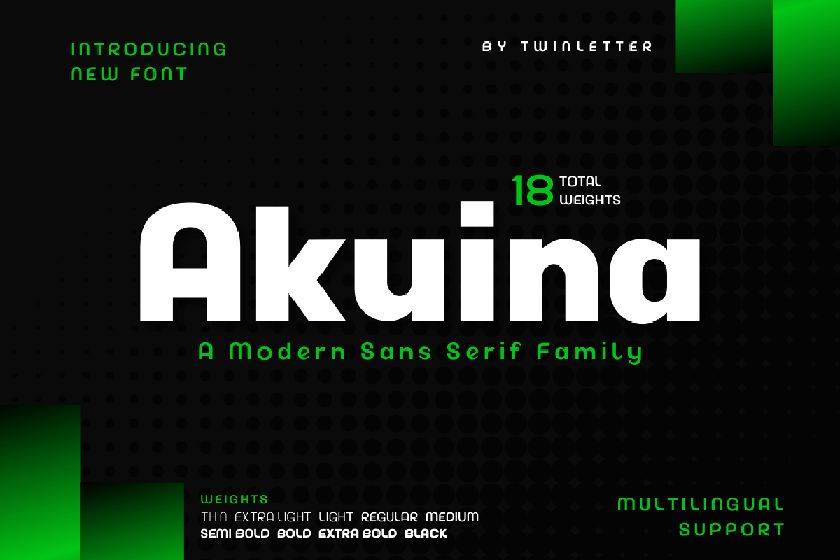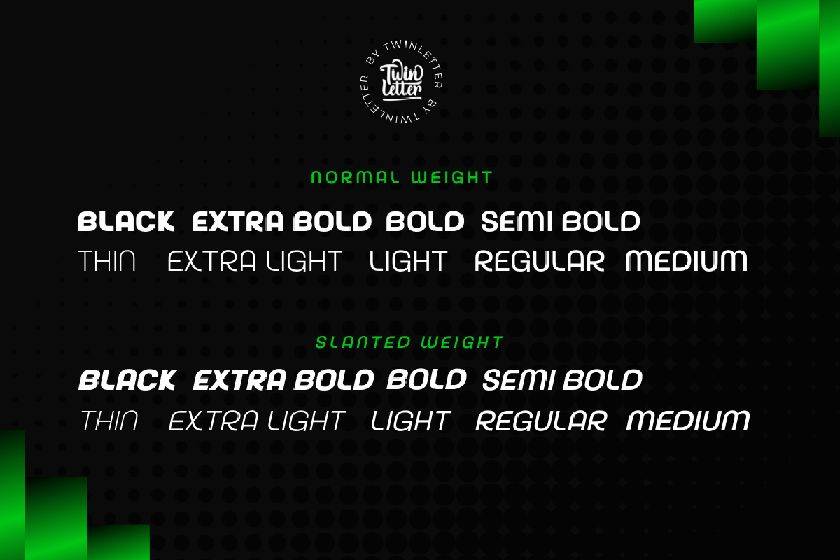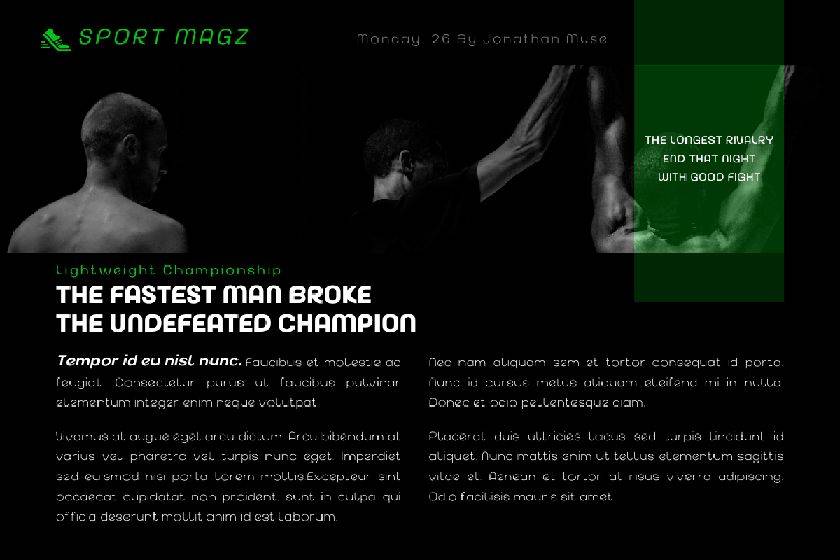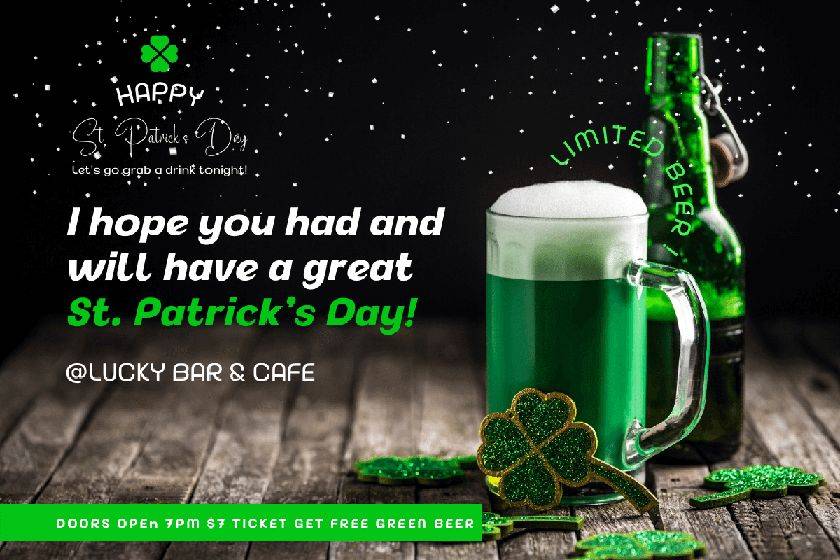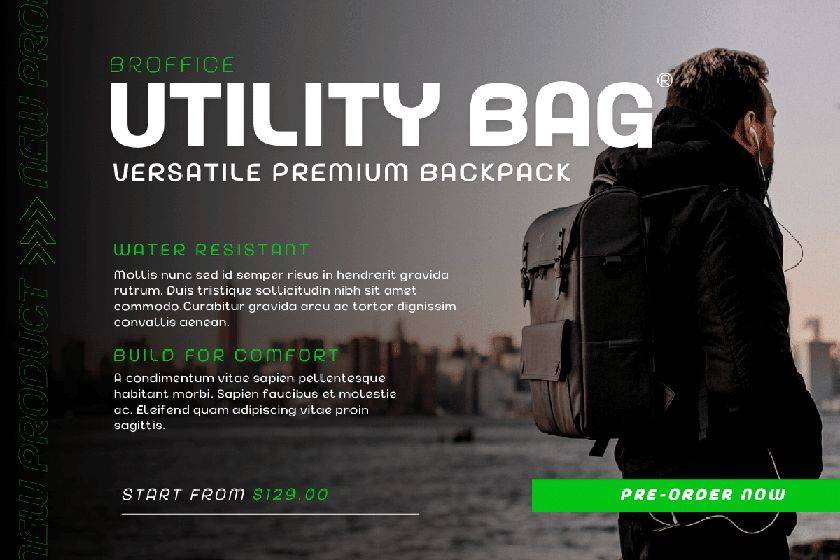
Akuina is a bold, geometric sans-serif font with a modern and clean appearance, featuring rounded edges and a slightly condensed width that lends a sturdy yet approachable feel. Its uniform stroke weight and distinctive letterforms, like the single-story "a" and unique "Q" tail, make it highly legible and versatile, perfect for branding, headlines, and digital use where a contemporary and confident look is desired. This font works well for companies seeking a fresh, professional image with a touch of friendliness.
About Akuina Font